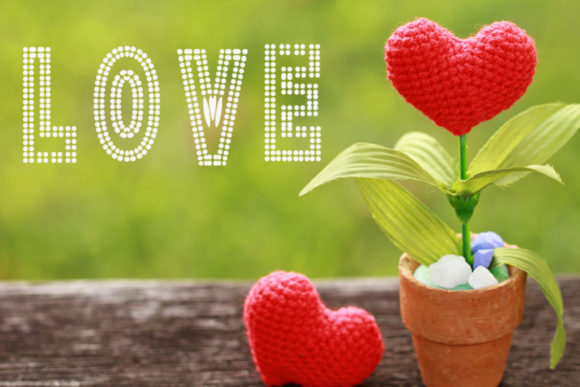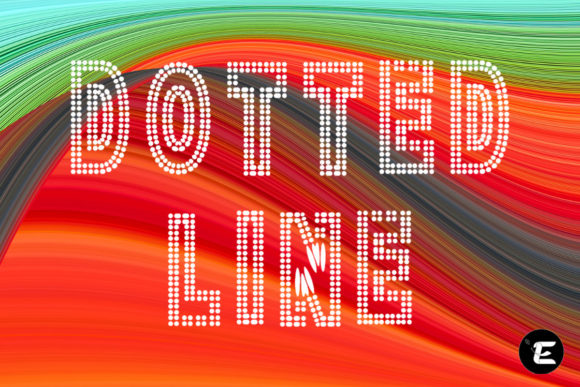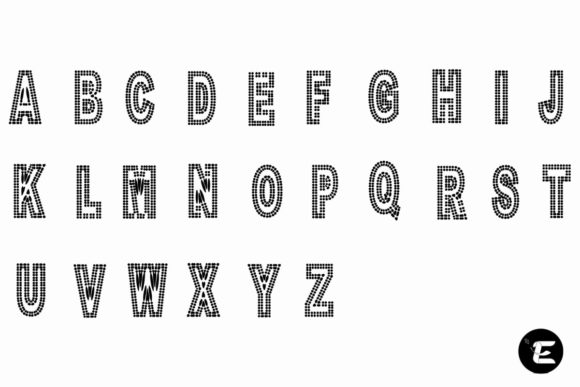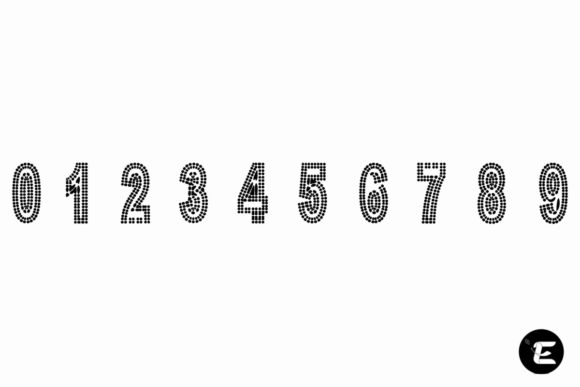
Dotted Line Font: Add a Personalized Touch to Your Crafting Projects
In the world of crafting, the right font can make all the difference in adding a personal touch to your projects. If you’re looking for a fun and modern font that can elevate your crafting game, look no further than the Dotted Line Font. This decorative font is perfect for crafters, designers, and DIY enthusiasts who want to add a unique and stylish touch to their projects.
What is Dotted Line Font?
Dotted Line Font is a decorative font that features a dotted line design. It’s a modern and fun font that’s perfect for adding a personalized look to your crafting projects. The font is made up of small dots that are connected to form letters and numbers, giving it a playful and whimsical feel.
Features of Dotted Line Font
The Dotted Line Font has several features that make it a great choice for crafters and designers. Some of its key features include:
- Unique Design: The dotted line design of this font is unique and eye-catching, making it perfect for adding a personalized touch to your projects.
- Modern and Fun: The font has a modern and fun feel that’s perfect for crafters and designers who want to add a playful touch to their projects.
- Easy to Read: Despite its decorative design, the Dotted Line Font is easy to read, making it perfect for use in titles, headings, and other applications where readability is important.
- Versatile: The font is versatile and can be used in a variety of crafting projects, from scrapbooking and card making to DIY signs and decorations.
Uses of Dotted Line Font
The Dotted Line Font is a versatile font that can be used in a variety of crafting projects. Some of the ways you can use this font include:
- Scrapbooking: Add a personalized touch to your scrapbook pages with the Dotted Line Font. Use it to title your pages, label photos, and add captions.
- Card Making: Create custom greeting cards with the Dotted Line Font. Use it to add a personal message or title to your cards.
- DIY Signs: Add a decorative touch to your DIY signs with the Dotted Line Font. Use it to create titles, headings, and other text elements.
- Decorations: Use the Dotted Line Font to add a personalized touch to your decorations, such as banners, garlands, and other DIY projects.
Tips for Using Dotted Line Font
Here are some tips for using the Dotted Line Font in your crafting projects:
- Use it sparingly: While the Dotted Line Font is fun and decorative, it can be overwhelming if used too much. Use it sparingly to add a touch of personality to your projects.
- Pair it with other fonts: The Dotted Line Font pairs well with other fonts, such as serif and sans serif fonts. Experiment with different font combinations to find the one that works best for your project.
- Adjust the size: The Dotted Line Font can be used at different sizes, depending on the project. Experiment with different sizes to find the one that works best for your project.
The Dotted Line Font is a fun and modern decorative font that’s perfect for adding a personalized touch to your crafting projects. With its unique design, modern feel, and versatility, it’s a great choice for crafters, designers, and DIY enthusiasts. Whether you’re working on a scrapbook page, creating a custom greeting card, or making a DIY sign, the Dotted Line Font is sure to add a touch of personality to your project.